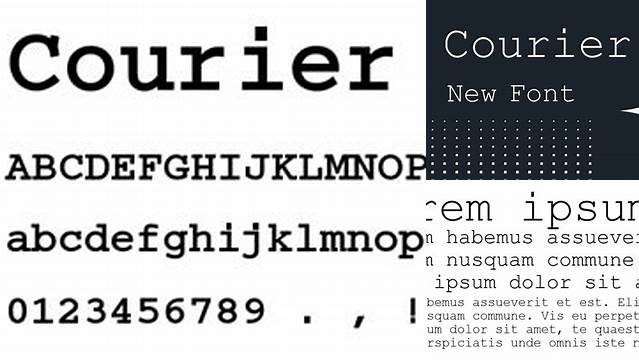
Hey guys! Ever wondered about that classic, typewriter-style font, Courier New? It's been a staple in operating systems for ages, and for good reason. Its monospaced nature makes it super clear and readable, especially for coding and technical documents. In this article, we're diving deep into everything you need to know about Courier New OS Font, from its history to where you can snag a free download and how to install it. So, buckle up and let's get started!
1. What is Courier New Font?
Before we jump into the download details, let's take a moment to understand what makes Courier New font so special. This font is a monospaced typeface, meaning that each character occupies the same horizontal space. This is different from proportional fonts, where wider letters like 'W' take up more space than narrow letters like 'I'. Courier New was designed by Arthur Palmer and first introduced by IBM as a typewriter font. Its clarity and readability made it a popular choice for various applications, especially those requiring precise character alignment.
The monospaced nature of Courier New is particularly beneficial for coding environments. Programmers often rely on character alignment to identify code blocks and errors. The consistent spacing makes it easier to spot syntax issues and maintain code formatting. Beyond coding, Courier New is also widely used in legal documents, screenplays, and other scenarios where character consistency is crucial. Its timeless design ensures that it remains a relevant and useful font even in today's digital age.
2. History and Evolution of Courier New
The story of Courier New font is quite fascinating. It was initially created to mimic the look of typewritten text, which was the standard for formal documents before the rise of personal computers. IBM commissioned the font’s creation to give their typewriters a clean, professional appearance. The original Courier font was a proportional typeface, but the monospaced version, Courier New, quickly gained traction due to its compatibility with early computer systems.
Over time, Courier New has seen several updates and modifications. Microsoft adopted it as a core font in Windows, further solidifying its presence in the computing world. While the font's basic design has remained consistent, subtle adjustments have been made to improve its readability on screens and in print. Despite the emergence of newer monospaced fonts, Courier New has maintained its popularity due to its familiar aesthetic and widespread availability. It remains a strong choice for anyone needing a reliable and readable monospaced font.
3. Why Choose Courier New Font?
So, why should you choose Courier New font over other options? There are several compelling reasons. First and foremost, its clarity and readability are unmatched. The consistent spacing makes it easy to read long passages of text without eye strain. This is especially important for tasks like coding or reviewing legal documents.
Secondly, Courier New is universally recognized and available. It comes pre-installed on most operating systems, meaning you don't have to worry about compatibility issues when sharing documents. This makes it a safe and reliable choice for professional communication. Finally, its classic, typewriter-style appearance lends a certain formality and professionalism to your work. Whether you're writing a screenplay, drafting a legal document, or coding a new application, Courier New offers a timeless aesthetic that conveys strength and precision.
4. Courier New vs. Other Monospaced Fonts
While Courier New font is a popular choice, it's not the only monospaced font out there. There are several other options, each with its own unique characteristics. Some popular alternatives include Consolas, Menlo, and Monaco. Consolas, for instance, is known for its improved readability on screens, while Menlo is a favorite among macOS users. Monaco, another classic monospaced font, is valued for its clean and minimalist design.
So, how does Courier New stack up against these competitors? In terms of readability, modern fonts like Consolas often have a slight edge due to their optimized design for screen display. However, Courier New's widespread availability and familiarity make it a reliable choice for many users. Ultimately, the best font for you will depend on your specific needs and preferences. If you're looking for a classic, universally recognized font with excellent readability, Courier New is still a strong contender.